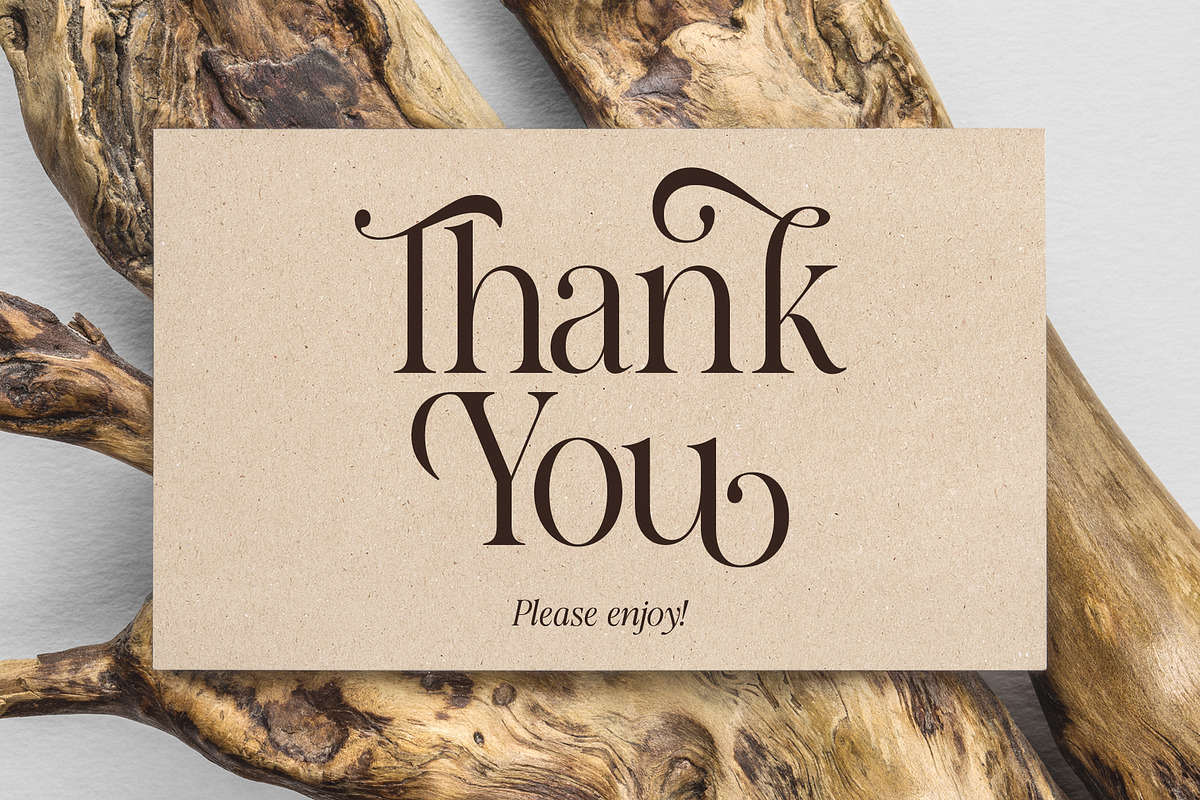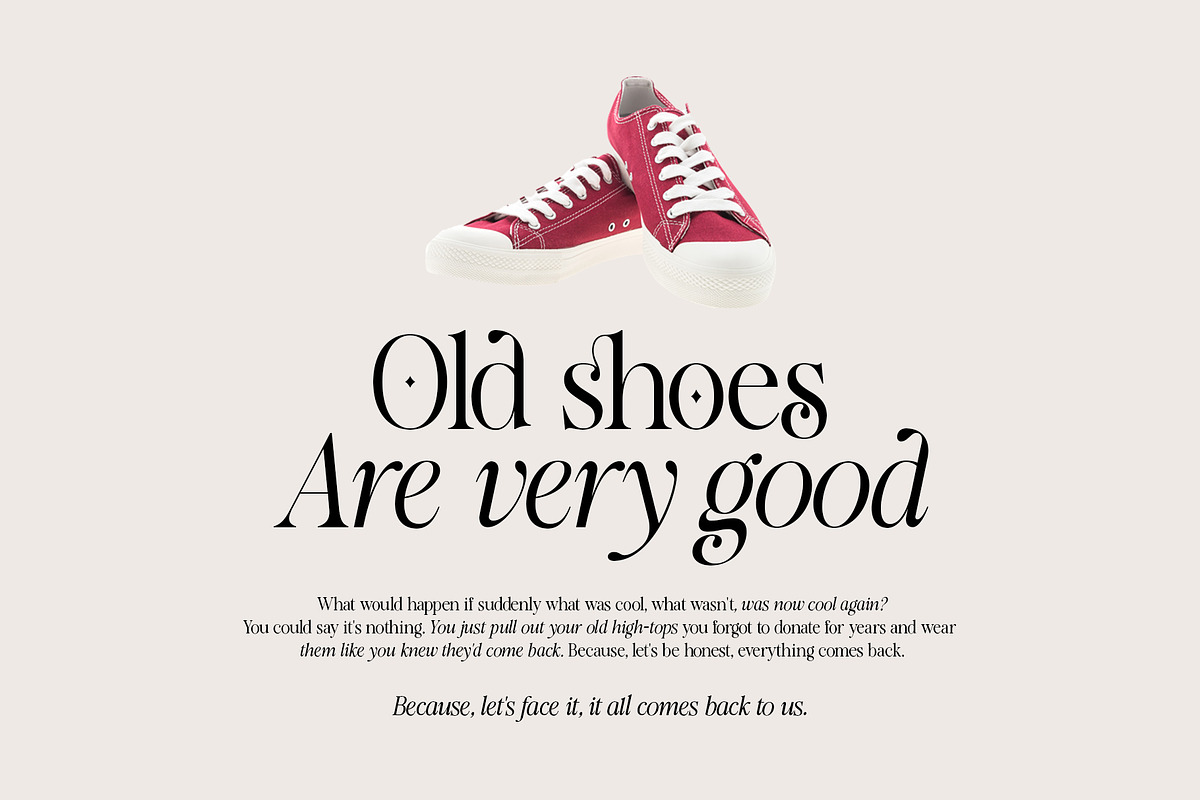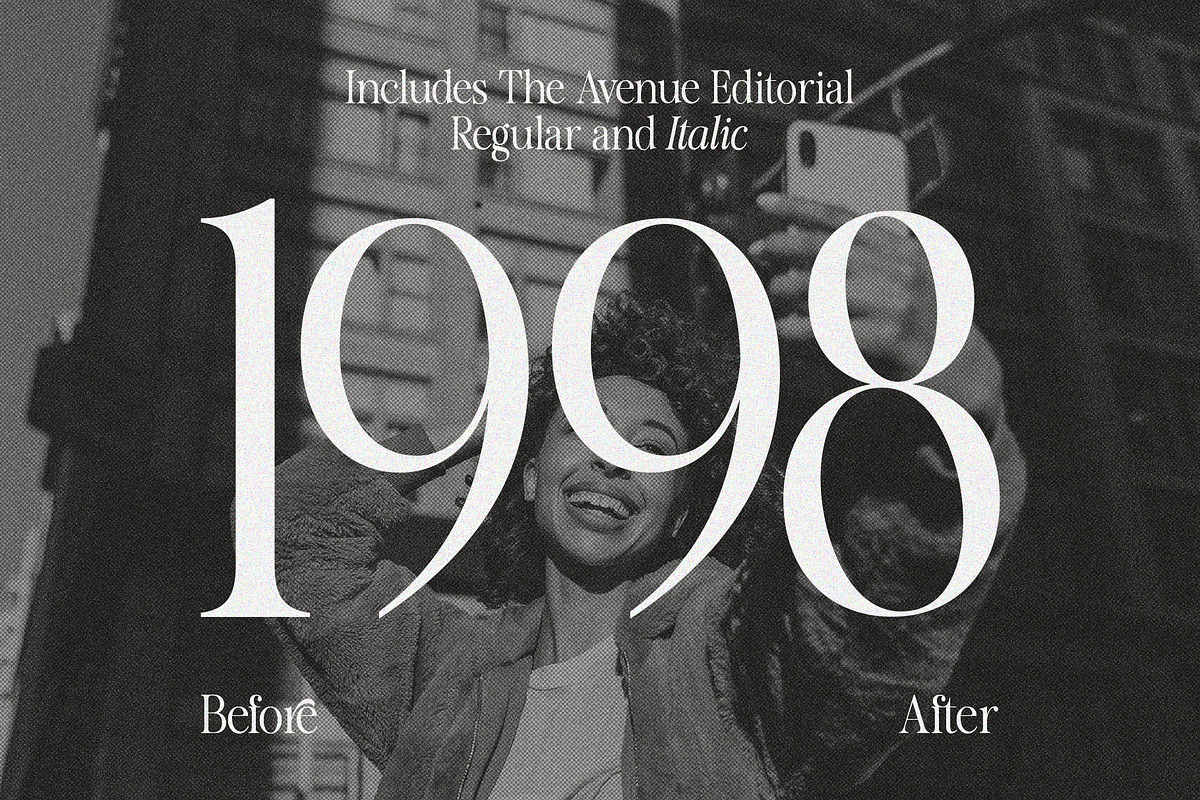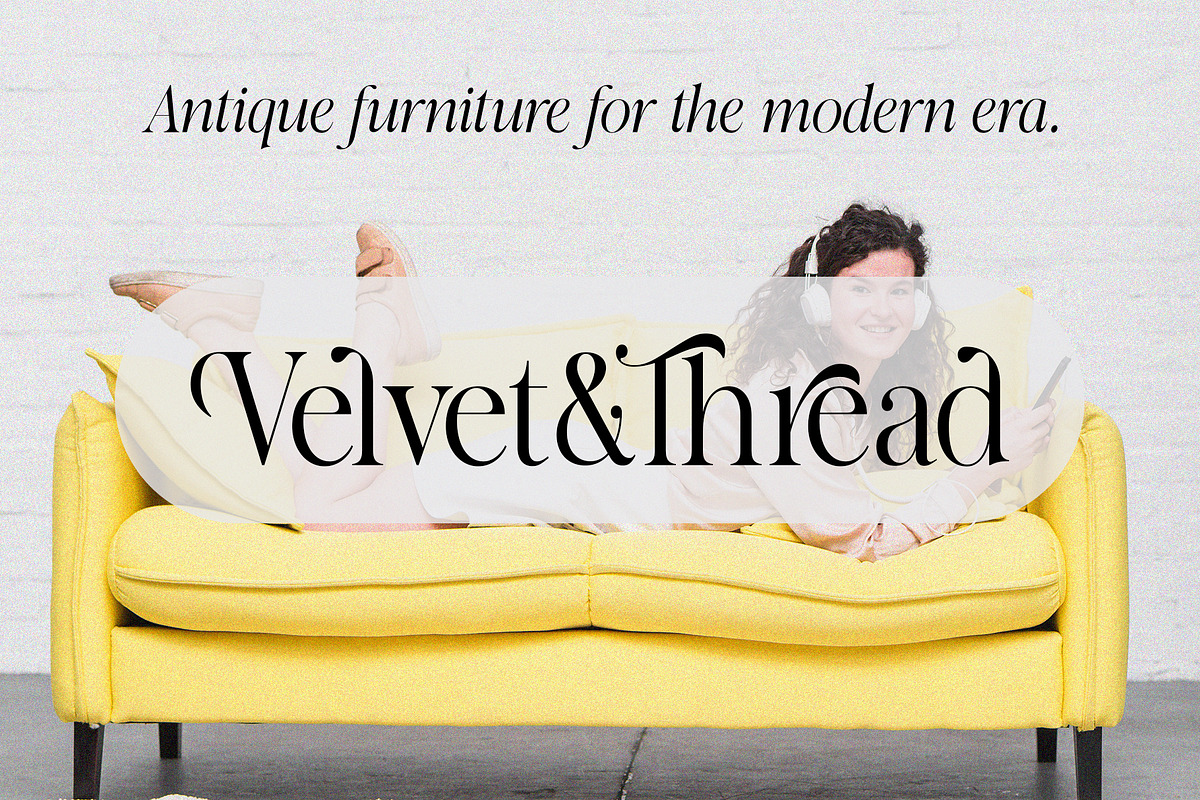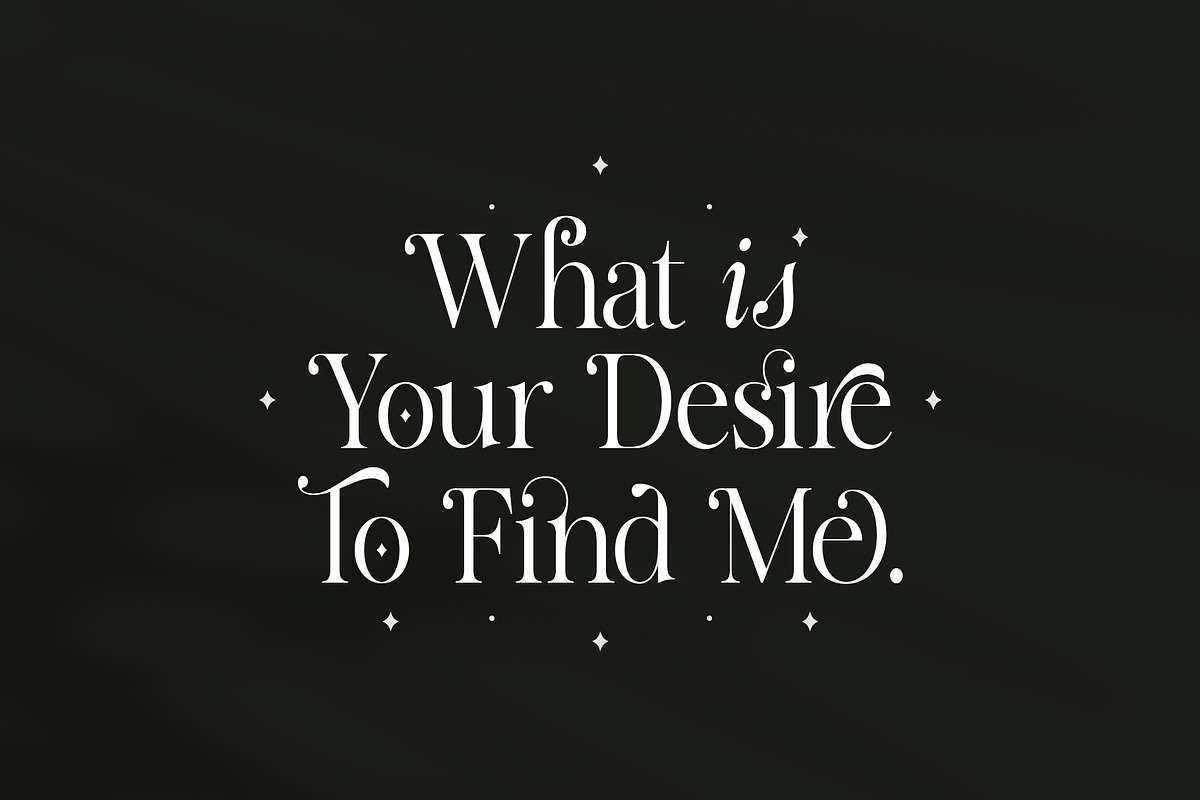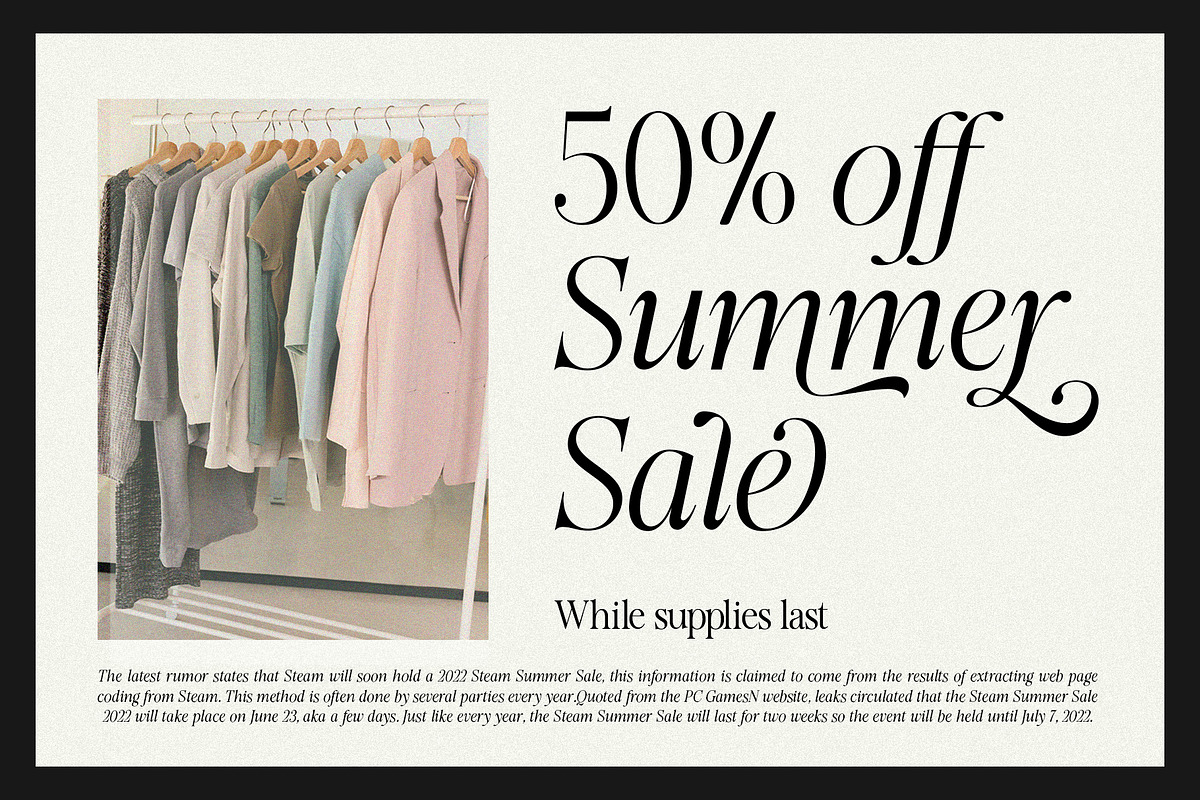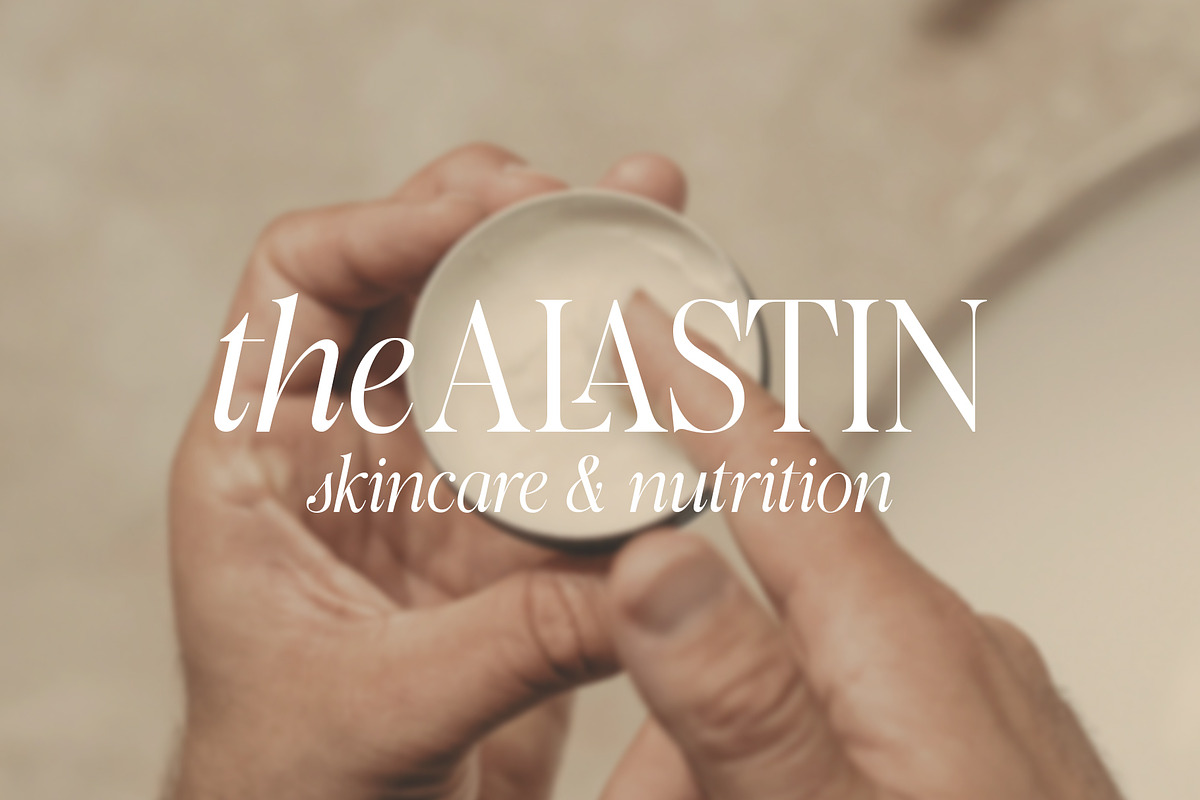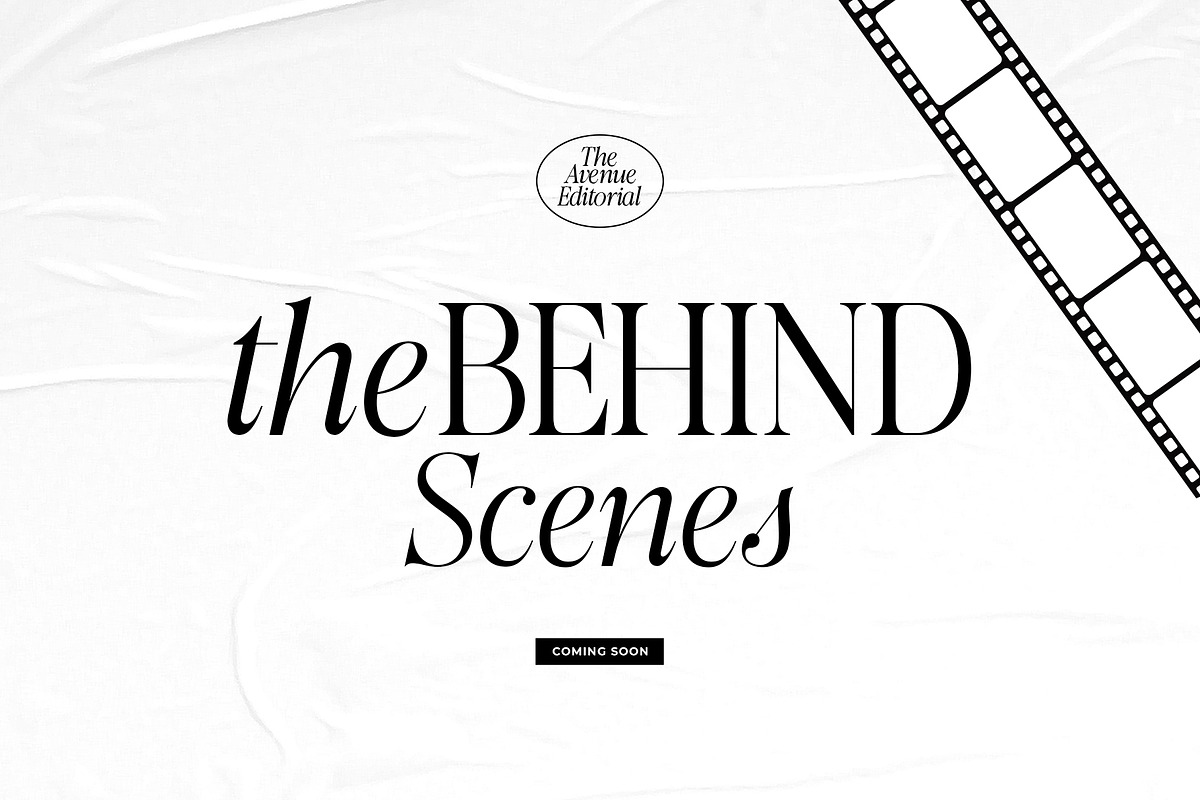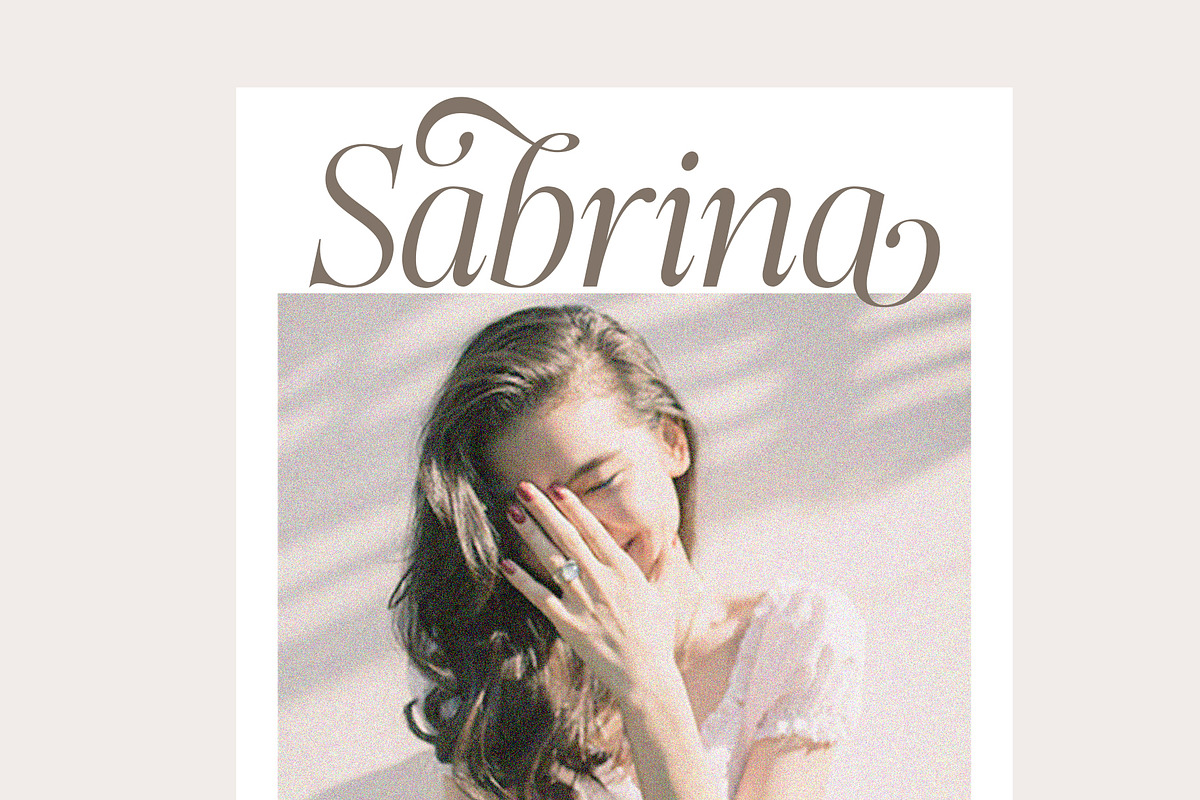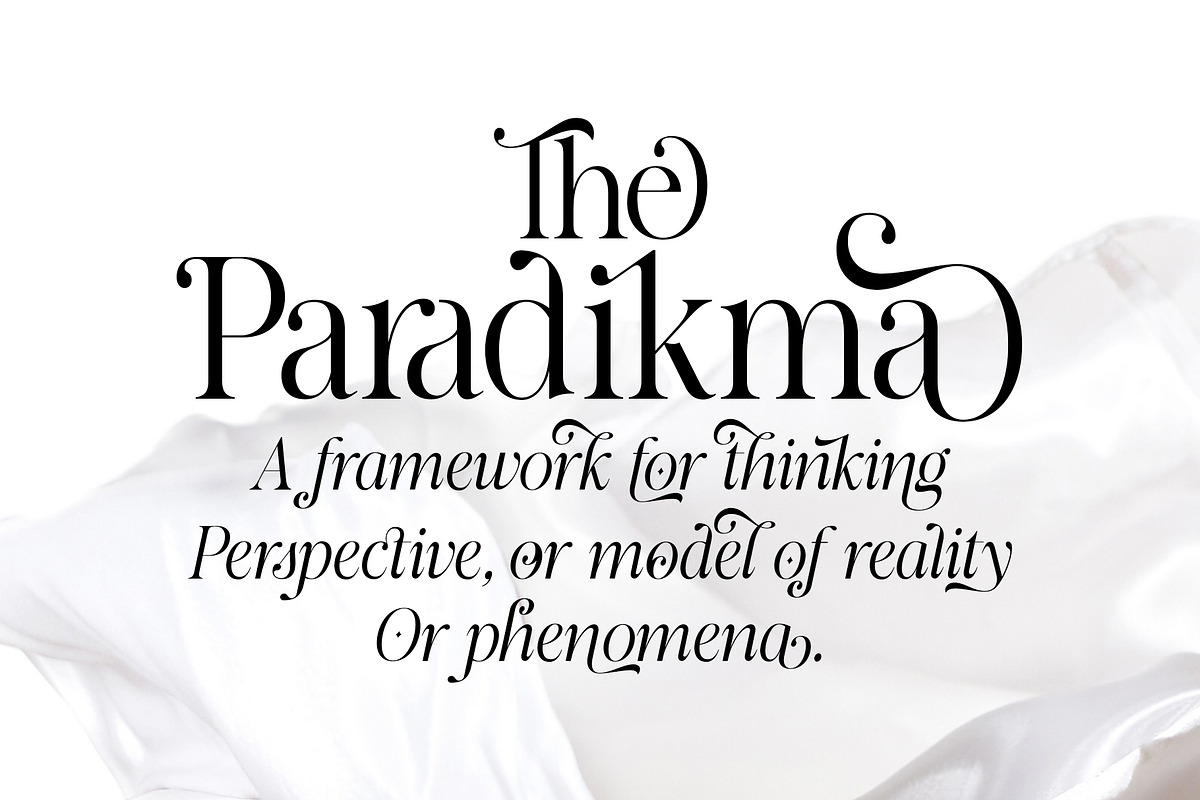
The Avenue Editorial
The Avenue Editorial is a modern editorial serif font that blends classic touches with contemporary luxury. With subtle curves, bold contrasting details, and stunning italics, this font is designed to convey an elegant, professional, and captivating impression in every design.
Specifically designed for editorial projects, luxury branding, wedding invitations, magazine covers, and premium visual identities, The Avenue Editorial offers a wide range of multilingual support, making it ready for use in the global marketplace. Each letter is designed with harmonious proportions to create a clean aesthetic while exuding a strong character.
If you want a design that looks elegant, classy, and timeless, The Avenue Editorial is the perfect choice to leave a lasting impression.